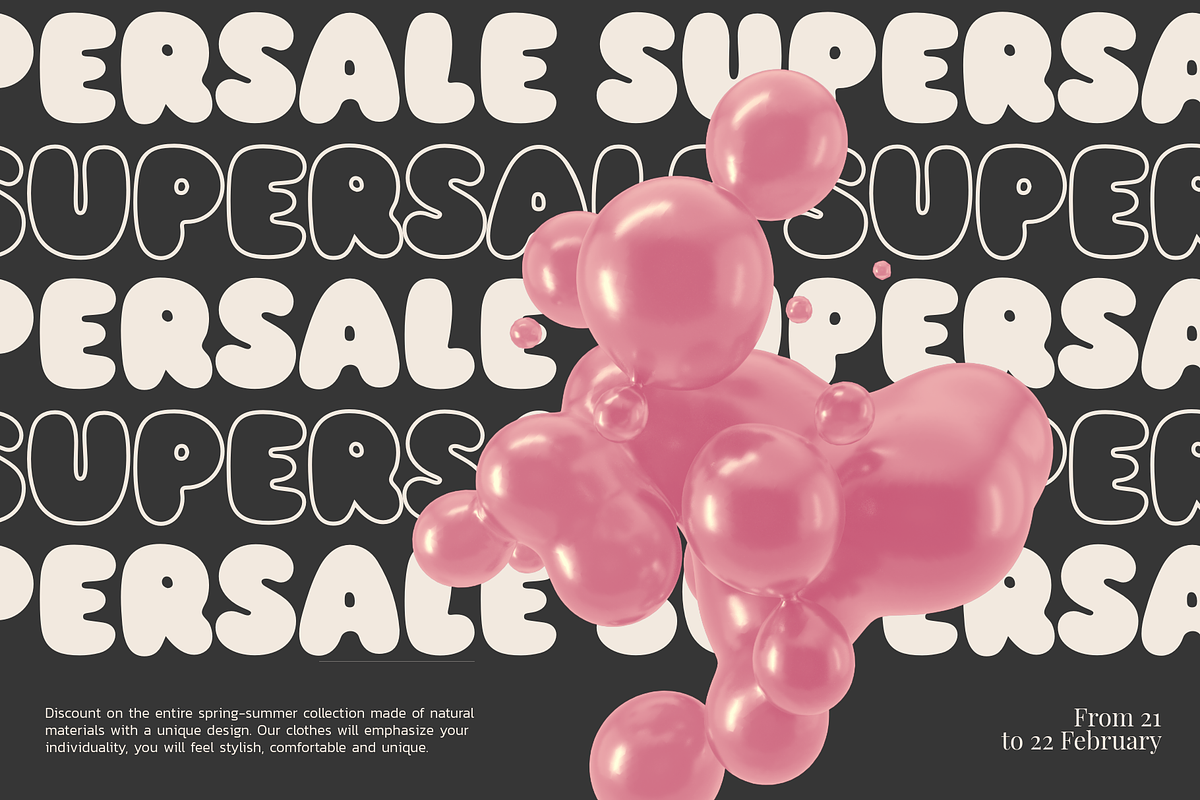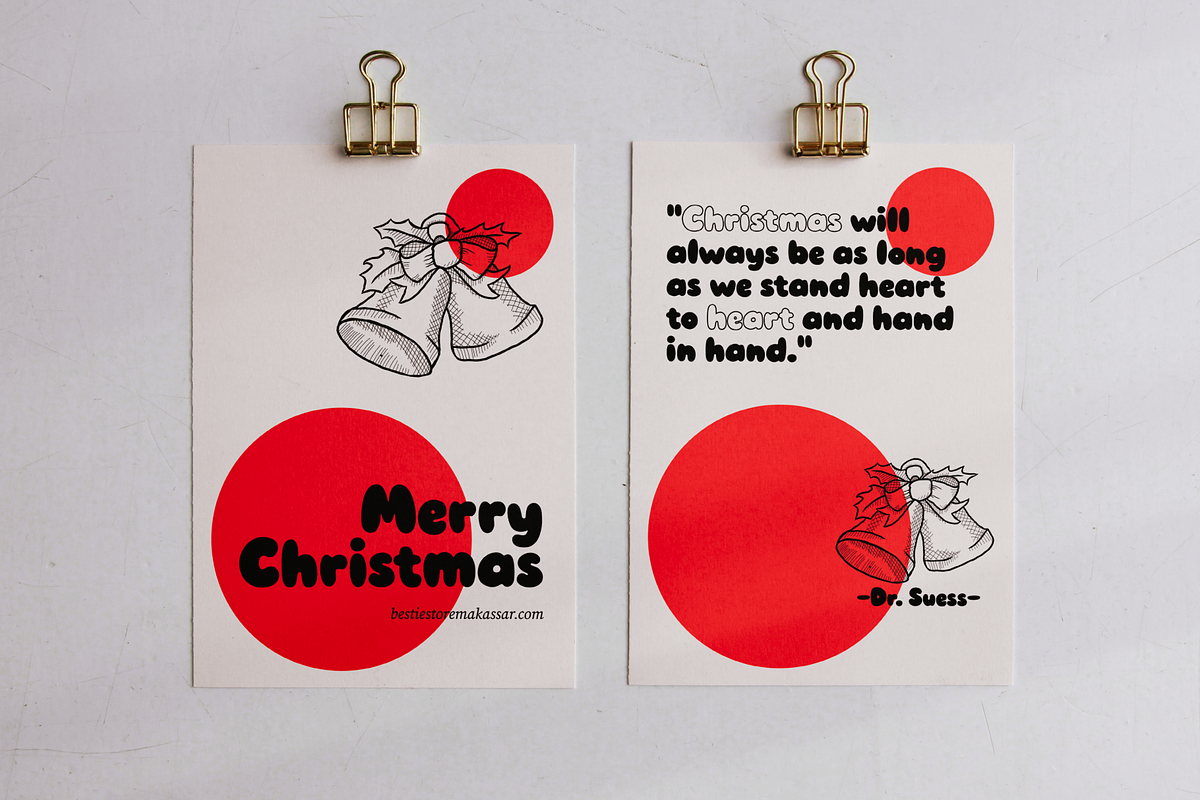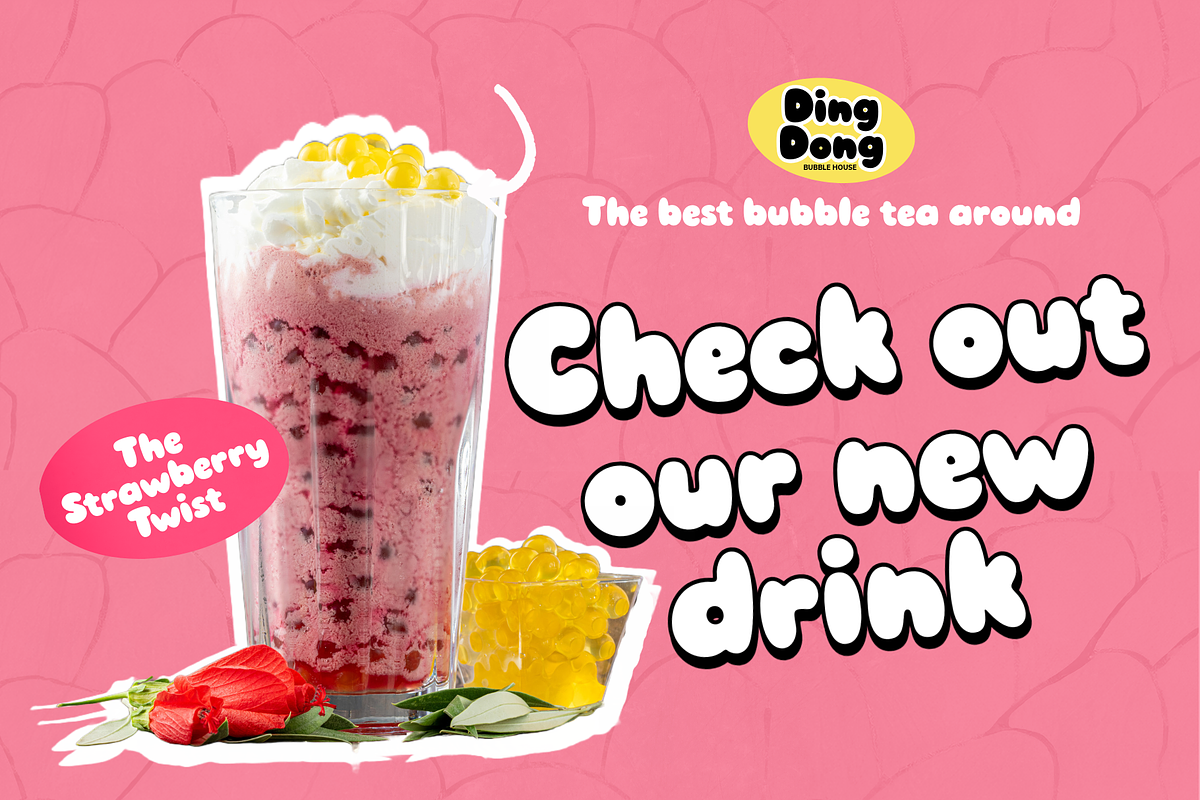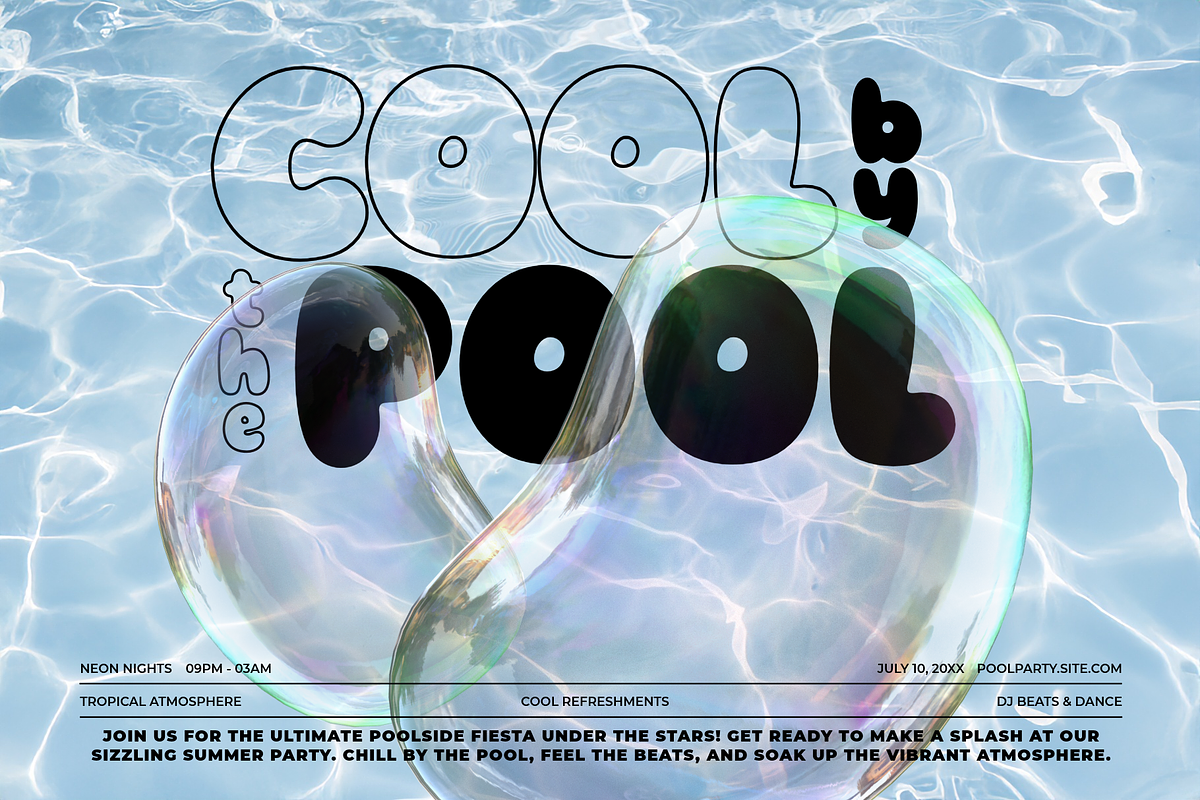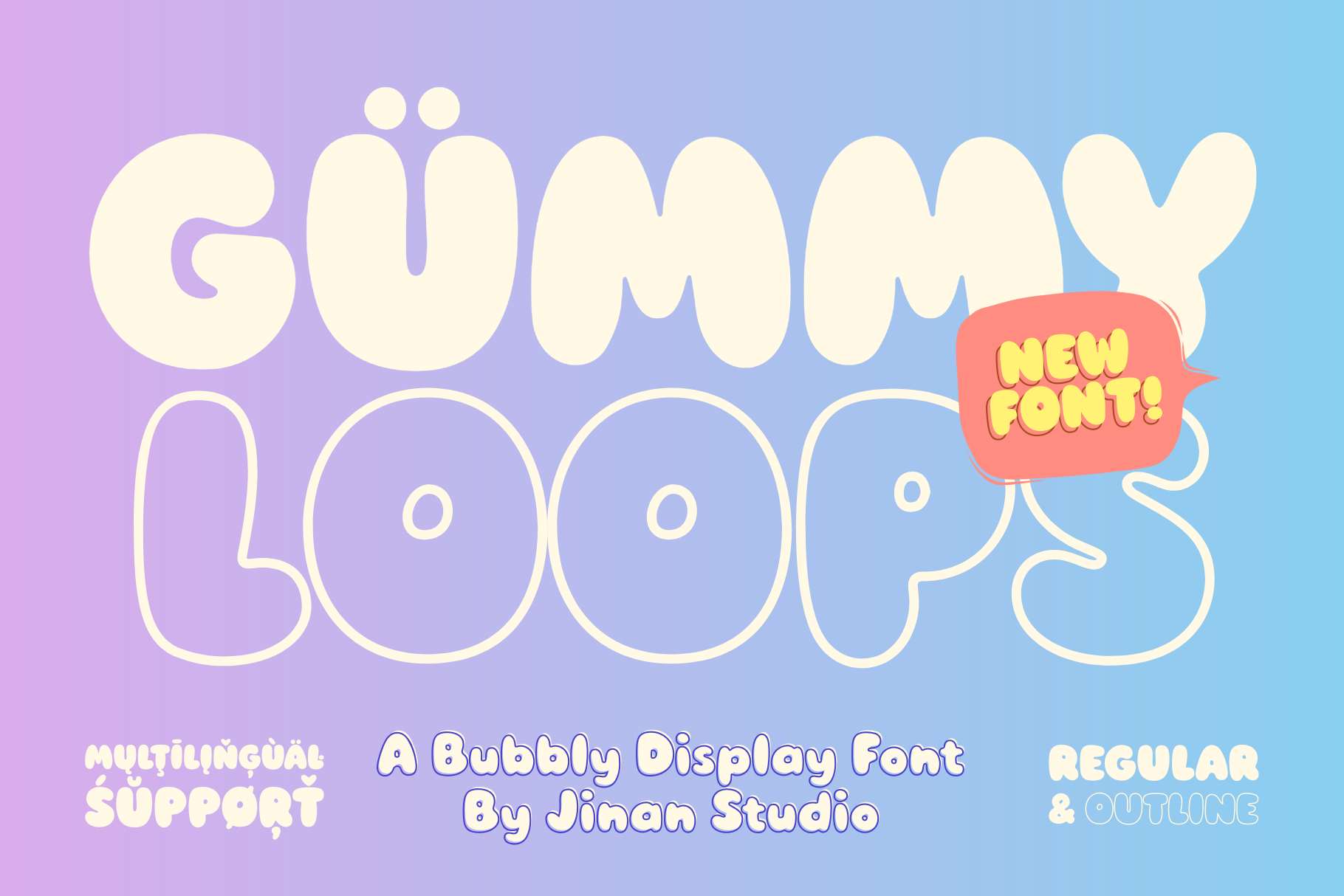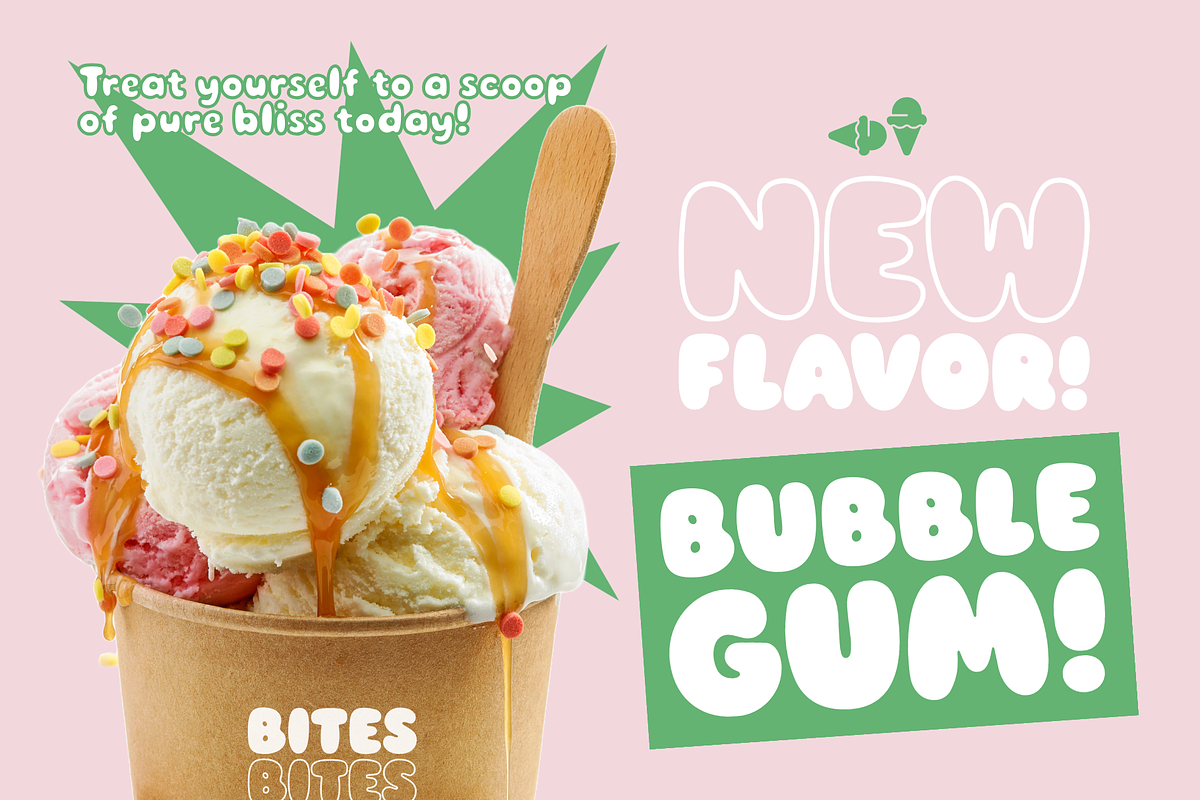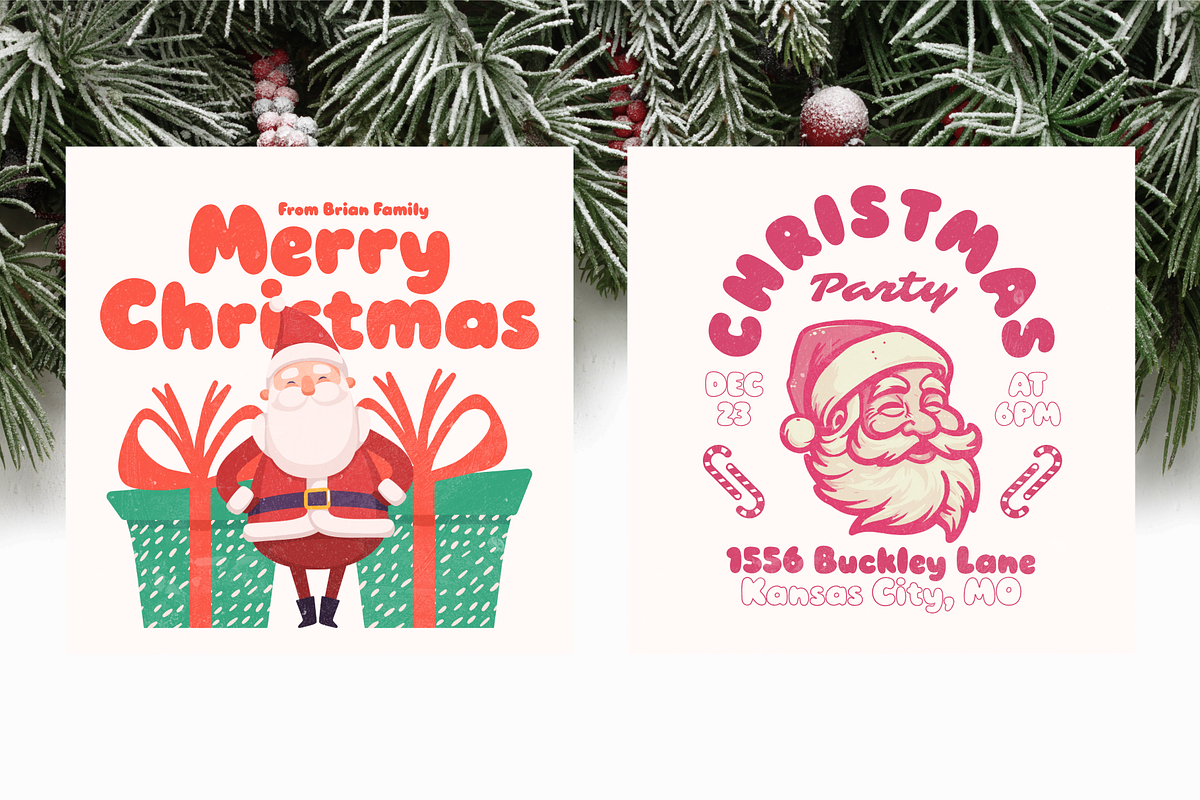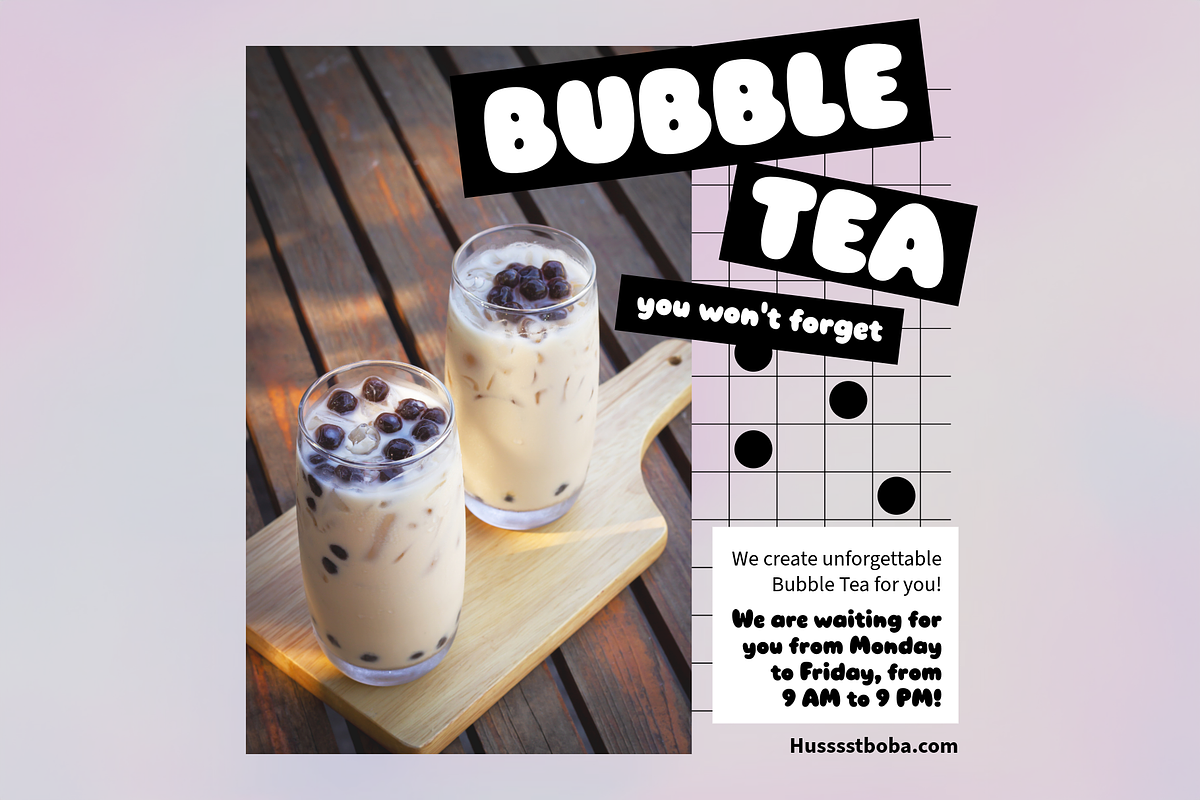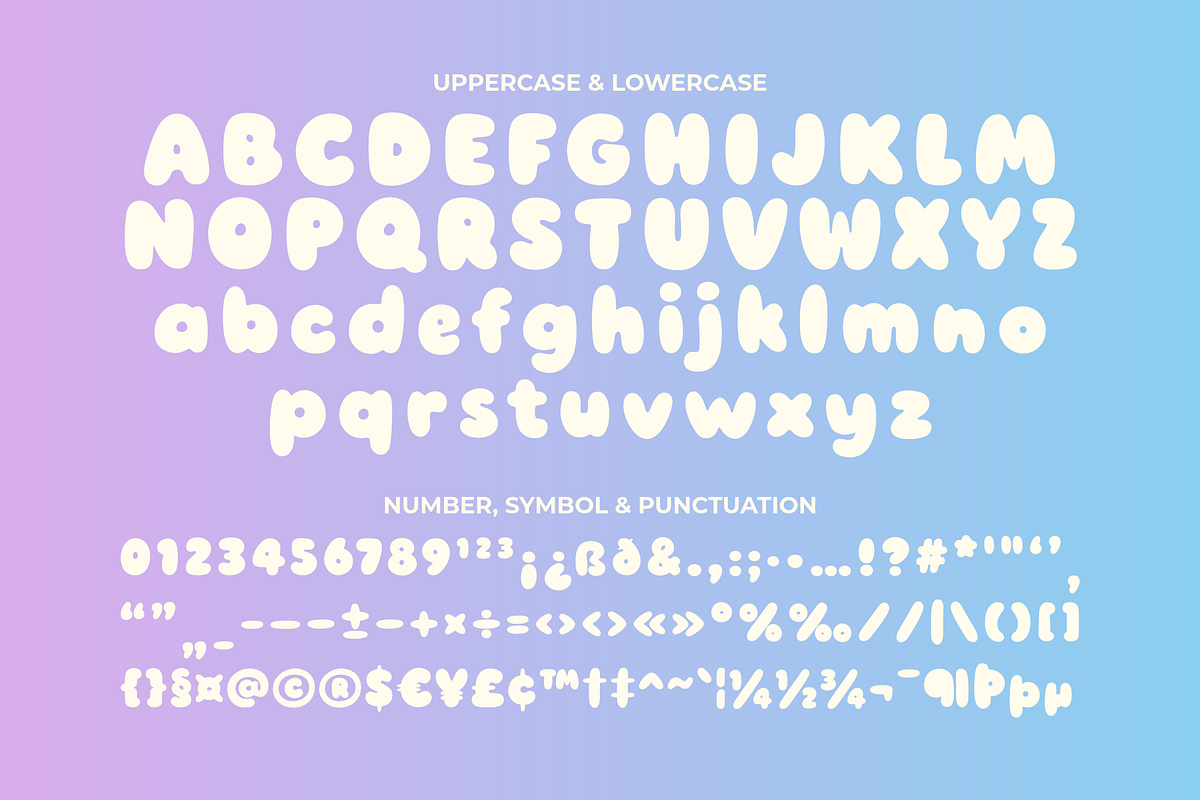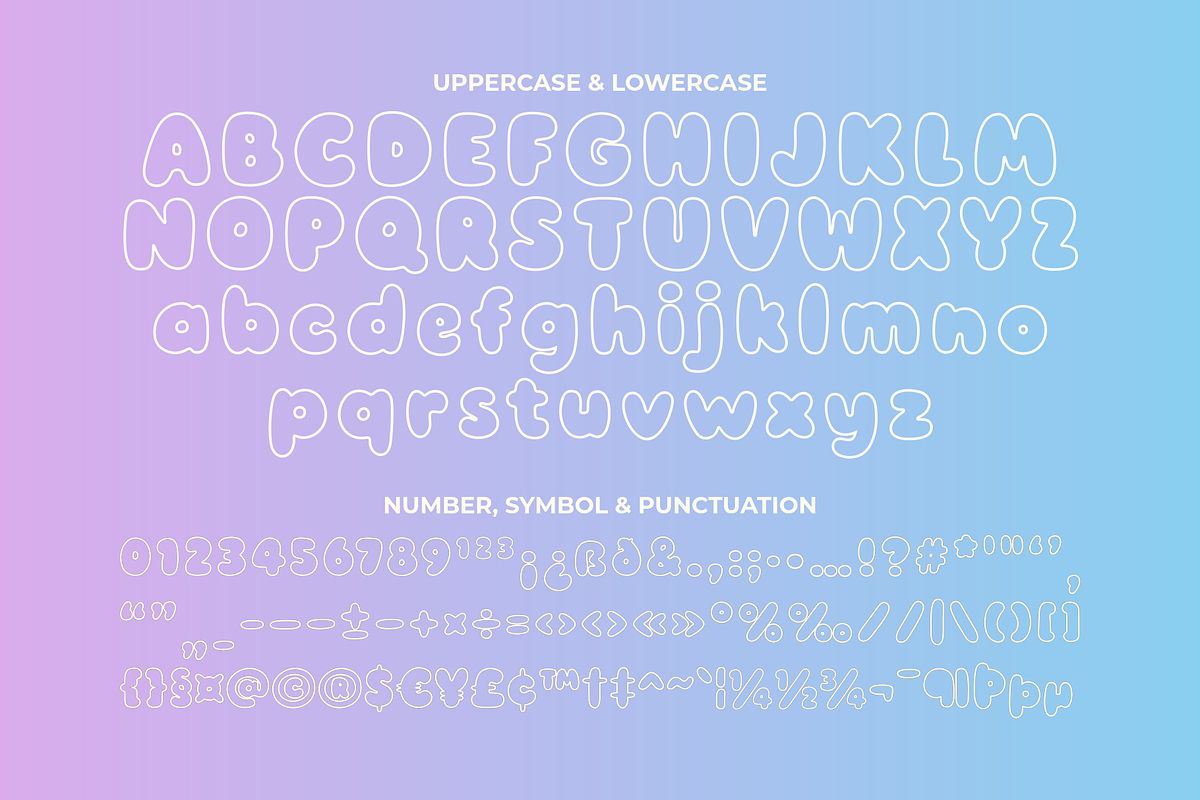
Gummy Loops - A Bubbly Display Font
Gummy Loops is a super playful bubbly display font designed to bring instant joy to any project. With its soft, rounded shapes and extra-cute personality, this font feels like candy for your eyes — perfect for kids’ designs, branding, packaging, posters, stickers, and anything that needs a burst of fun.
It comes in Regular and Outline styles, giving you flexible options for bold titles, layered designs, or colorful compositions. Gummy Loops also includes multilingual support, making it easy to use for audiences around the world.
Whether you're creating adorable product labels, cheerful social media graphics, or eye-catching logos, Gummy Loops adds a sweet, friendly, and irresistible charm to your designs.
Bring your ideas to life with a font that’s as cute and bouncy as it looks!
- A set of uppercase and lowercase glyphs
- Number, symbol, and punctuation
- Outline Version